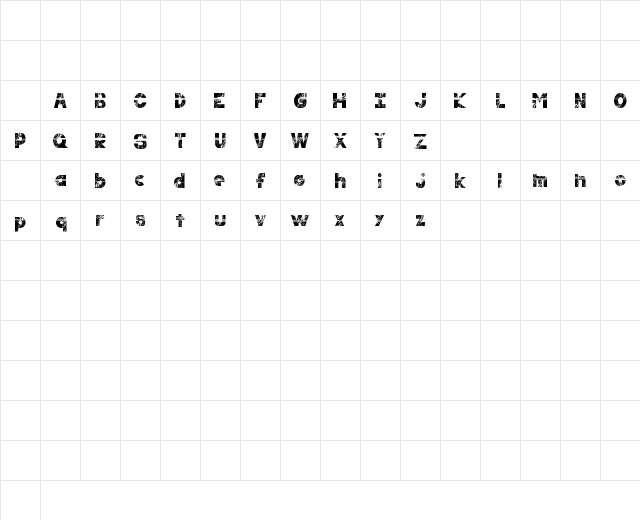
Complete resilience Bold glyph index. Displaying only characters natively supported by resilience Bold font.
resilience is a composed and adaptable typeface that performs quietly and consistently across a wide range of design contexts. Its bold stroke weight gives it real presence on the page.